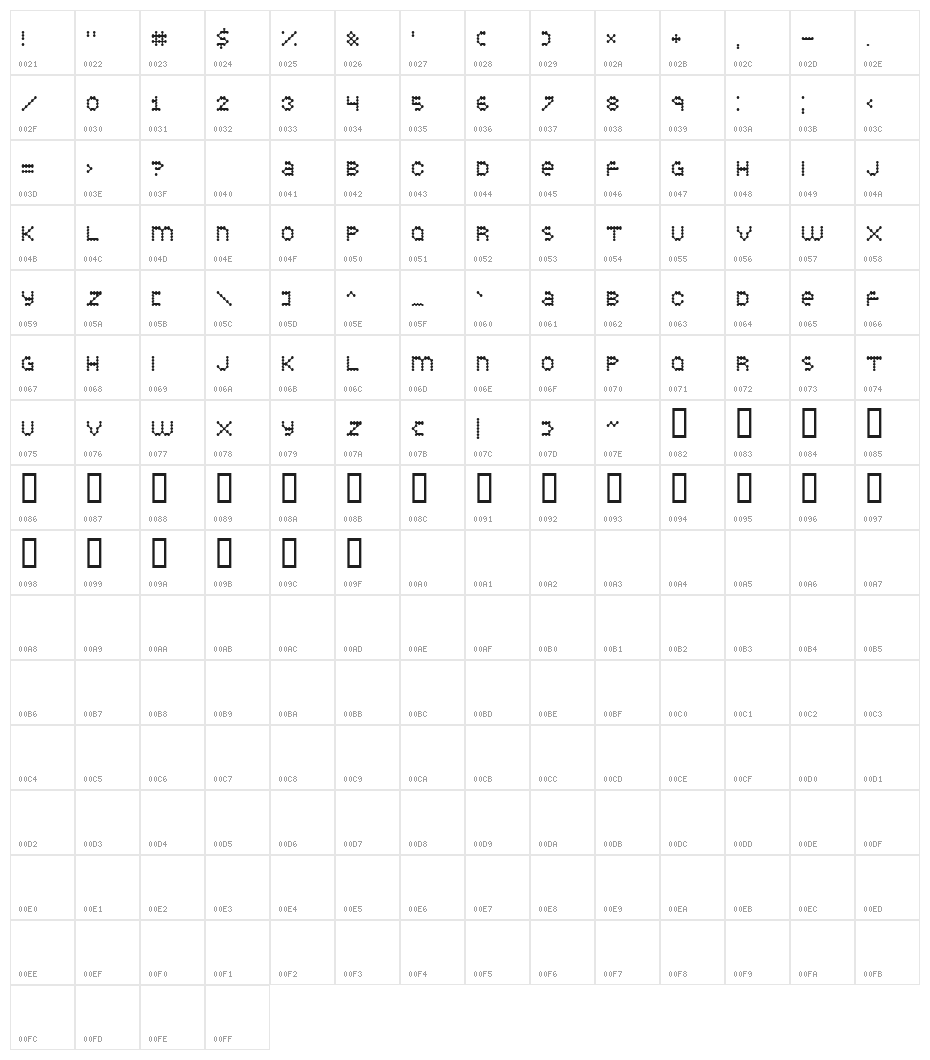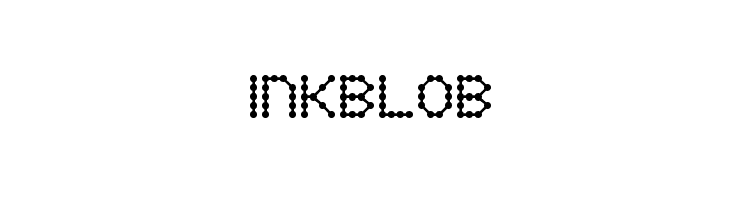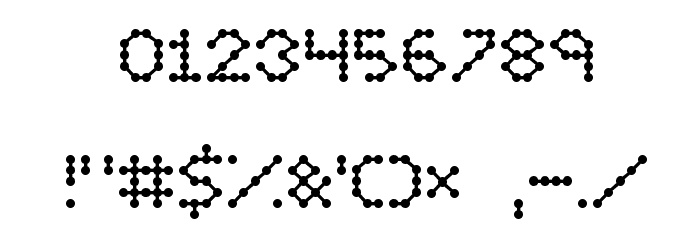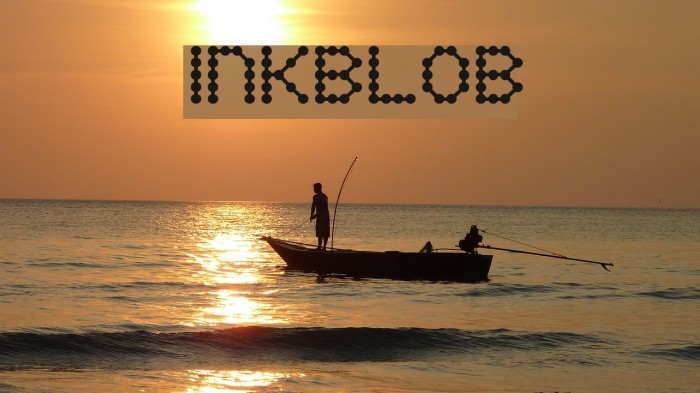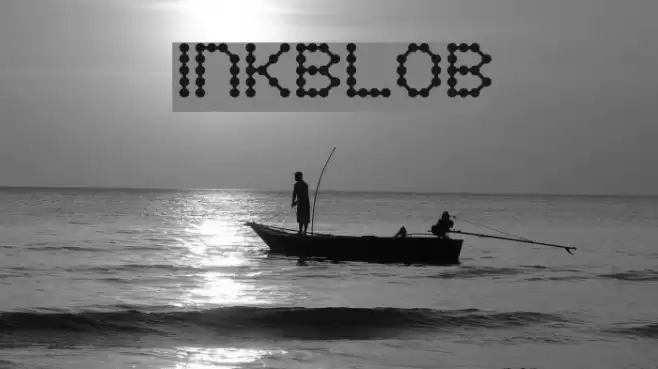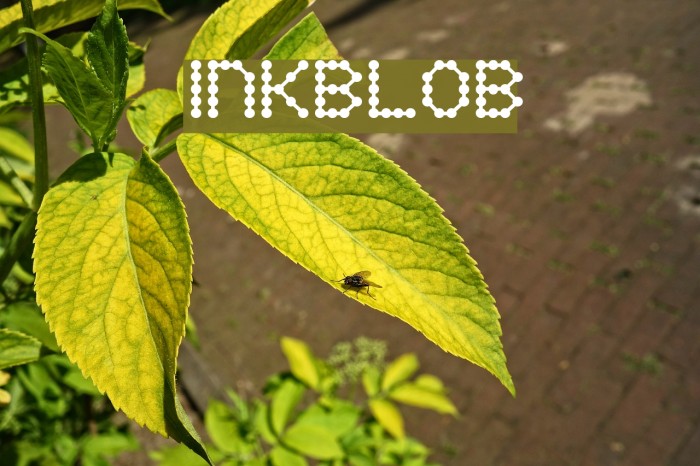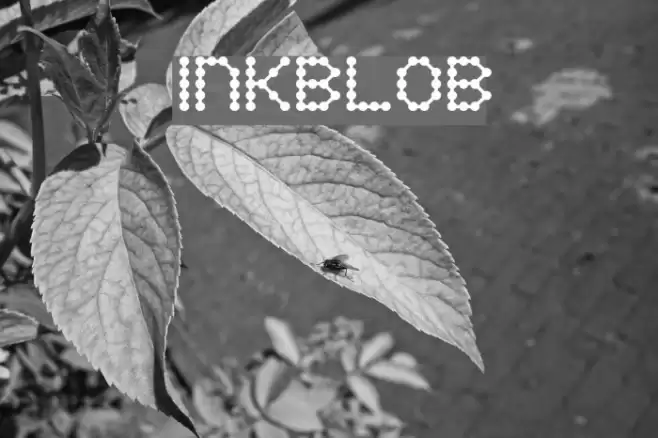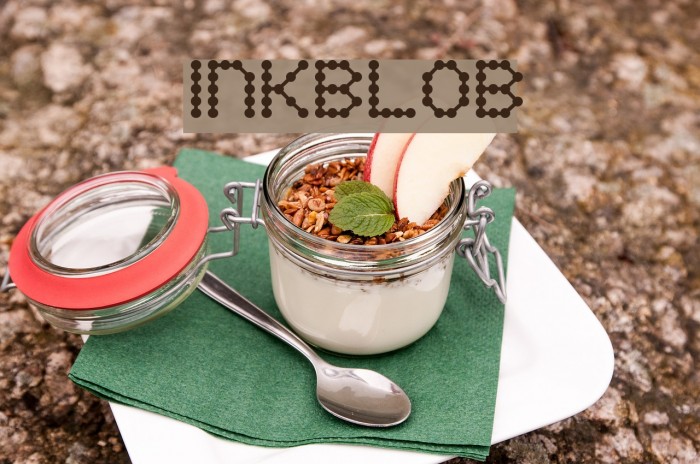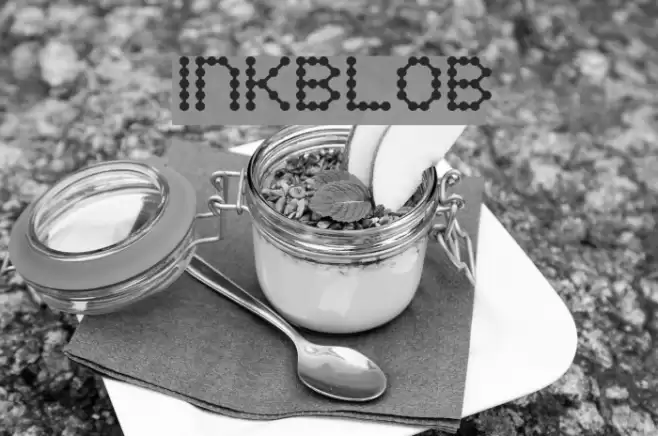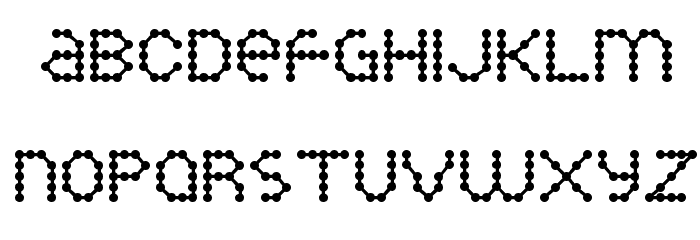
Inkblob Font
Inkblob Description
This font features a unique design where each character is composed of small, evenly spaced dots, creating a playful and distinctive appearance. The rounded dots give it a soft, approachable feel, while the consistent spacing maintains readability. The uppercase and lowercase letters, as well as numbers and special characters, all follow this dotted pattern, ensuring uniformity across the typeface. This style is reminiscent of digital displays or pixel art, making it suitable for creative and modern applications. The font's playful nature is balanced by its structured form, allowing it to be both eye-catching and functional.
| Use Case | Logos, Headlines, Creative projects |
| Proposed Projects | Ideal for digital art projects, children's books, playful branding, or any design requiring a modern and creative touch. |